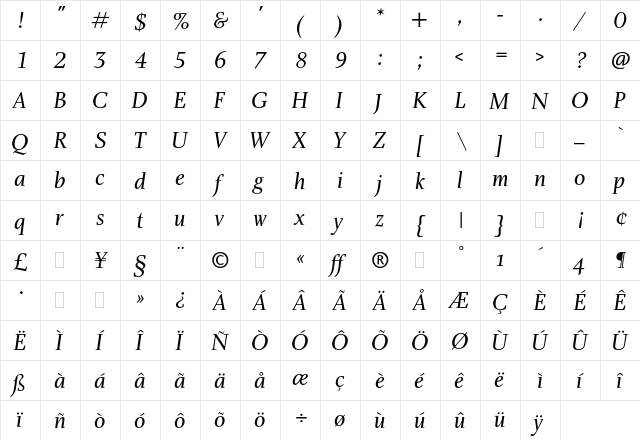
Charlotte Book Italic Plain
Design Context for Charlotte Book Italic Typeface
Charlotte Book Italic takes a measured approach to typography — its balanced proportions and neutral character make it a reliable workhorse for both digital and print work. Its italic angle brings a sense of urgency and motion to the letterforms.
Pro Tip: Use Charlotte Book Italic for emphasis, pull quotes, and subheadings where its slanted energy can add rhythm to the layout.